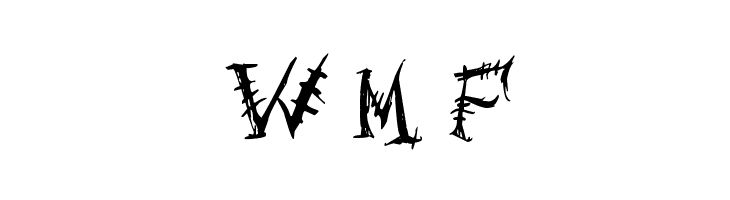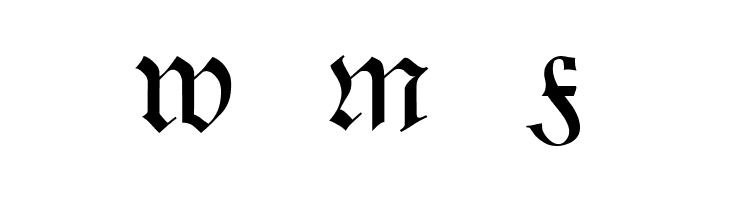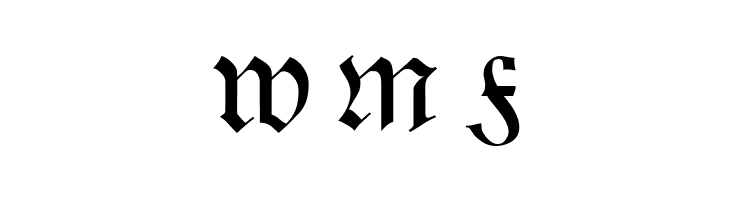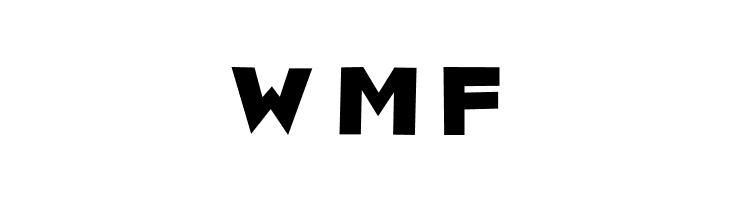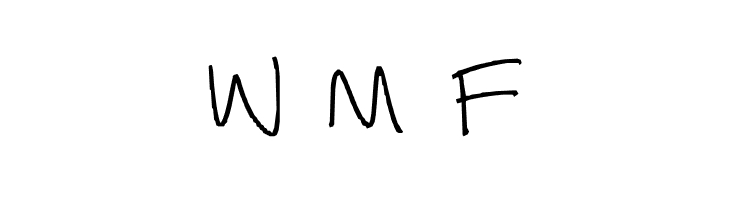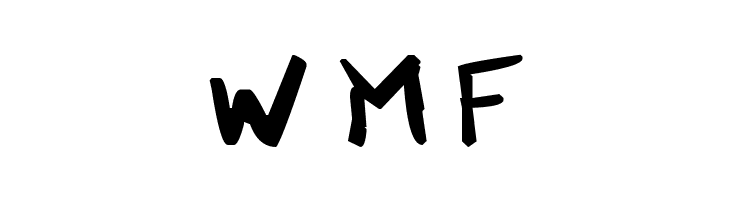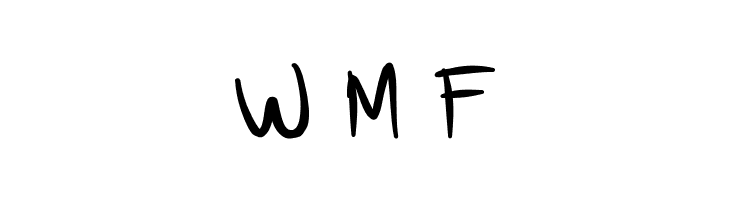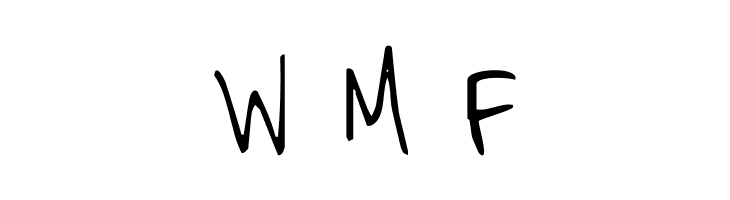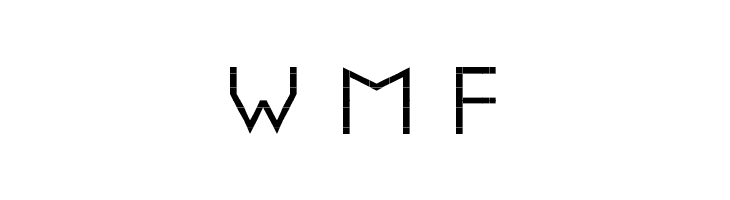
An edgy, distressed font with thorny, jagged edges.
An edgy, barbed wire-themed decorative font with bold, jagged characters.
A playful, bold font with rounded letters and a whimsical, youthful style.
A bold, modern font with a geometric design, perfect for headlines and branding.
A playful, handwritten font with a casual, school-inspired style.
A geometric, pixelated font with a modern, tech-inspired design.
A bold, gothic-style font with intricate, angular strokes and a blackletter influence.
An ornate and traditional font with intricate, decorative letterforms.
A traditional blackletter font with intricate, angular strokes and a historic flair.
A classic blackletter font with intricate, angular strokes and a medieval feel.
A playful and whimsical font with unique, quirky letterforms.
A bold, distressed typewriter-style font with a grunge, vintage aesthetic.
A decorative font with seaside-themed illustrations, perfect for nautical designs.
A bold, decorative font with a distressed, three-dimensional look.
A bold, distressed font with a grunge, hand-drawn style.
A bold, italic font with high contrast and a modern, edgy style.
Bold, italicized font with a modern and dynamic style.
A futuristic, geometric font with bold, angular shapes.
A bold, eclectic display typeface with modern and vintage influences.